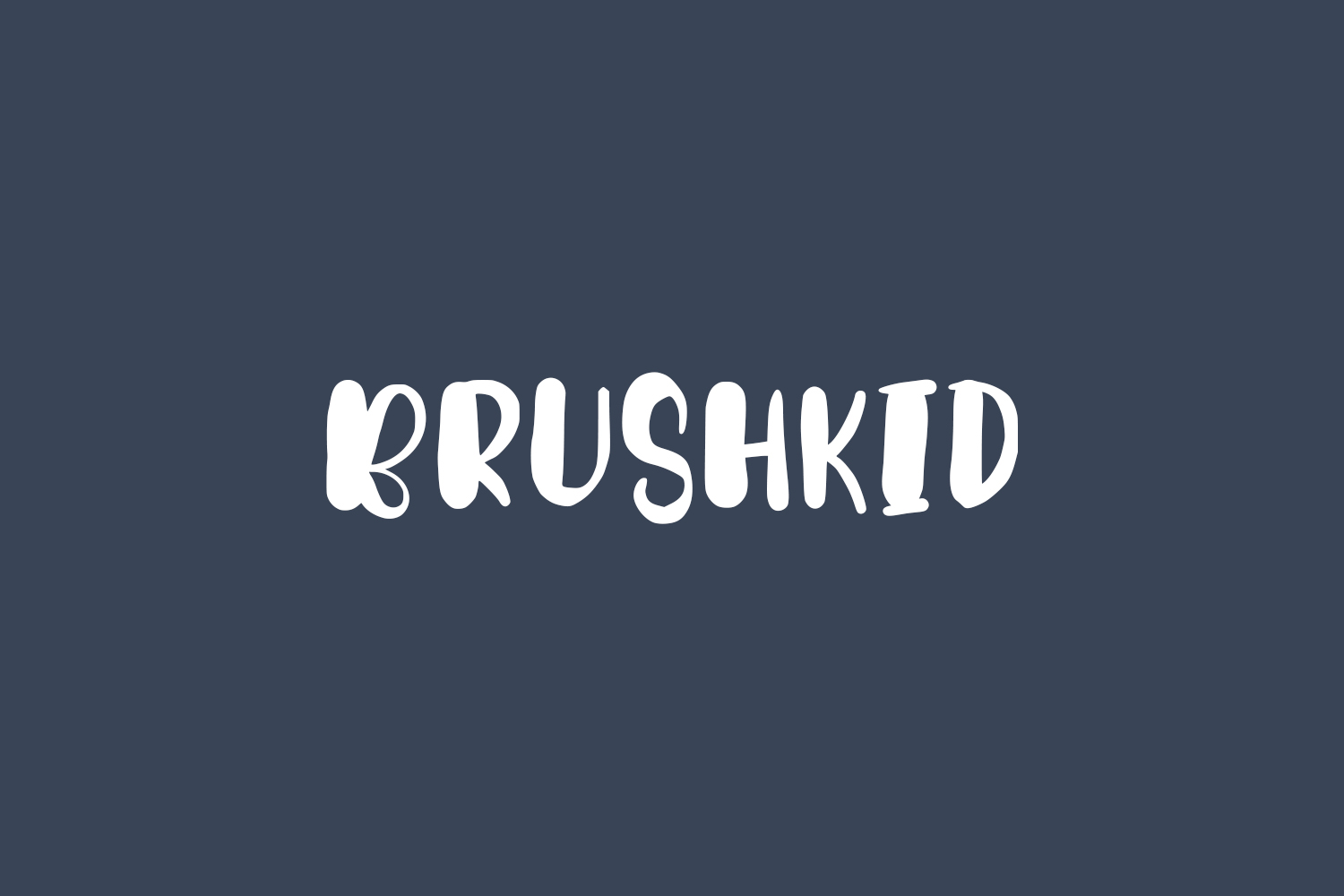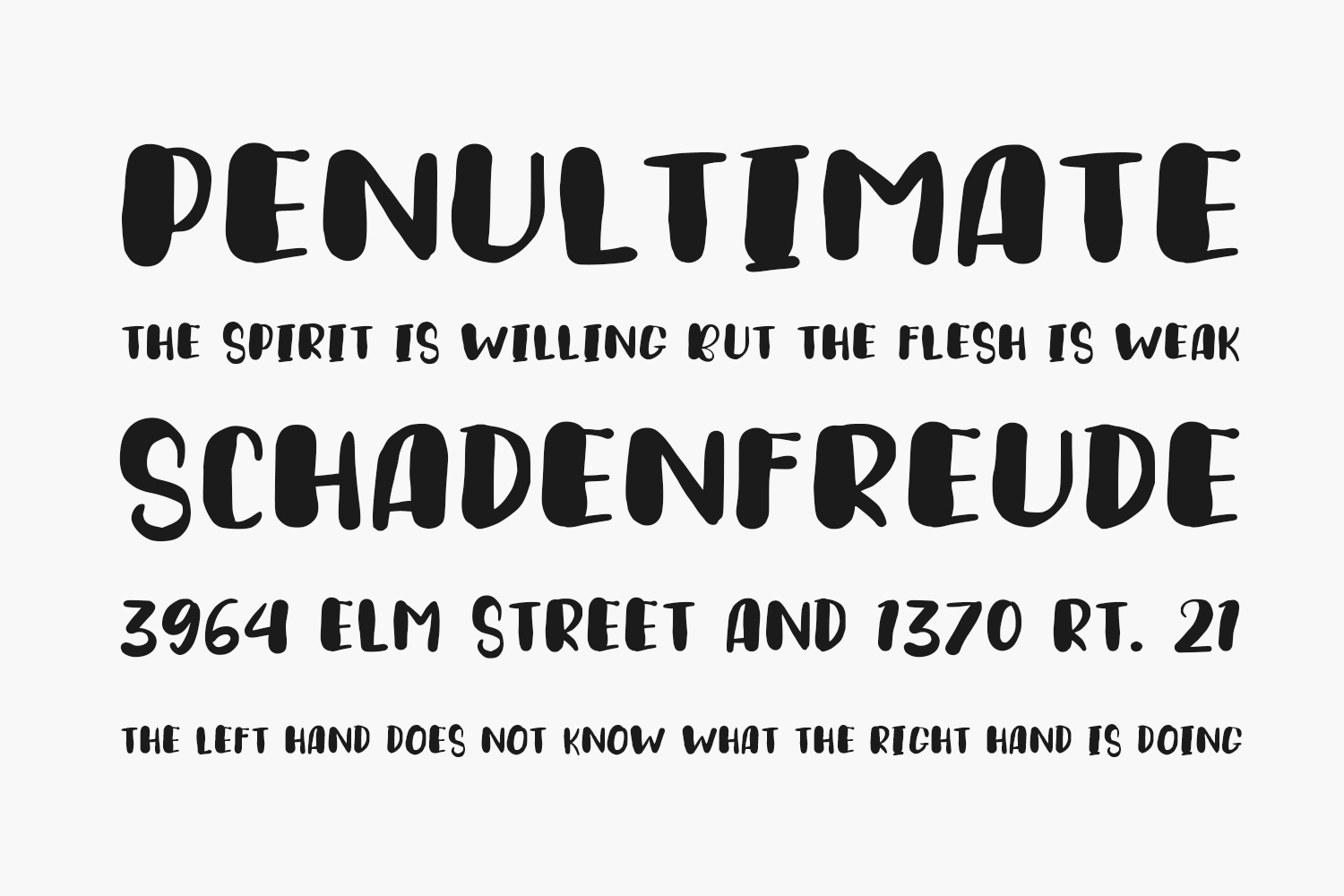
Brushkid Free Font is a cute and friendly display font. It embodies playfulness and authenticity and is the perfect choice for any children’s activity or school project. Brushkid Free Font was designed by Pustudio and is free for personal use only. Please purchase the full version for commercial use.